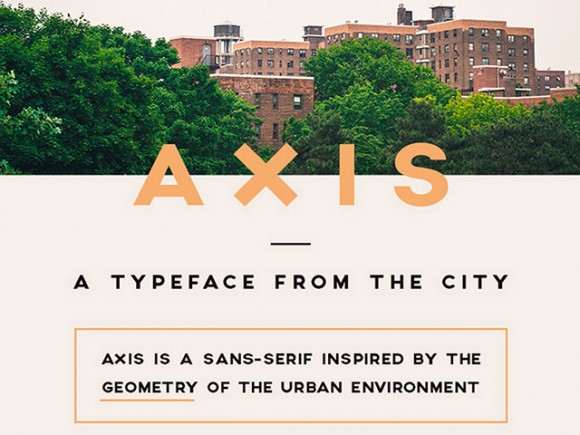
Download and enjoy this free axis font. Cool typeface to showcase your designs in a modern way. Go give some love to Freebies Bug for creating this top-notch typeface. Easily amaze your audience with this beautiful font and make your graphic designs pop up from the crowd.